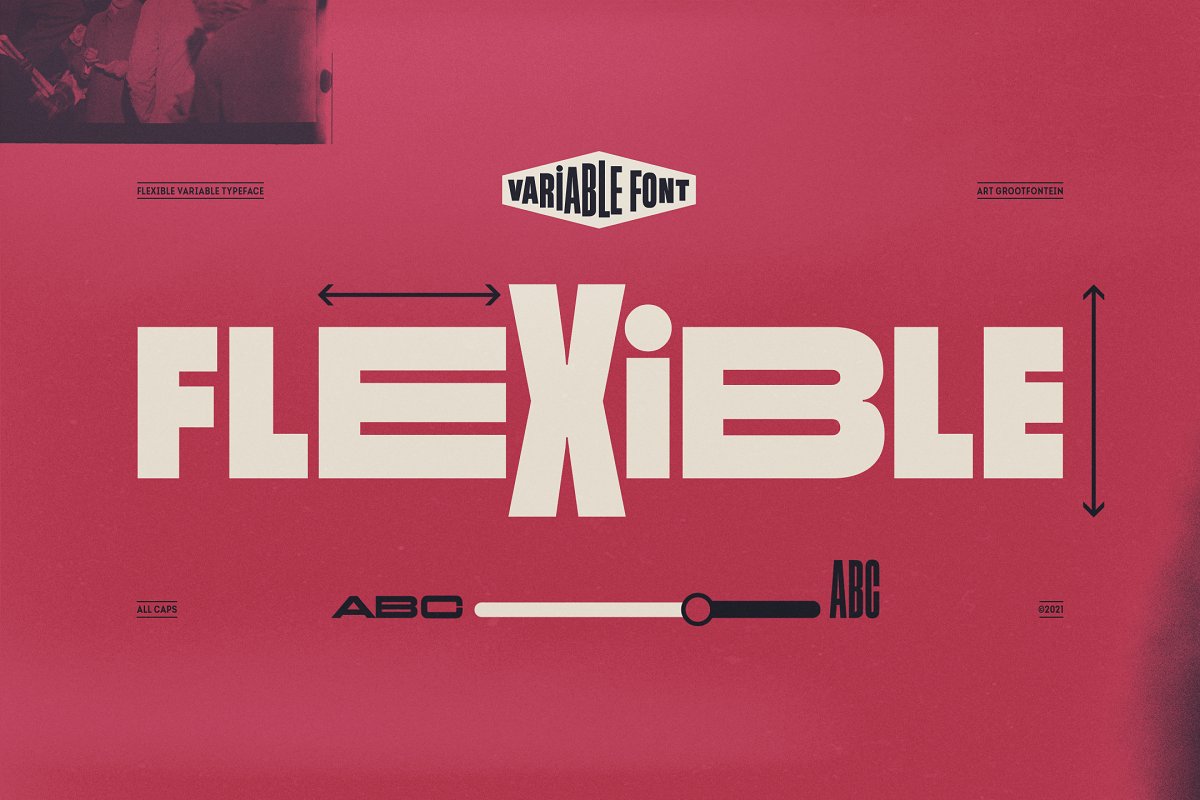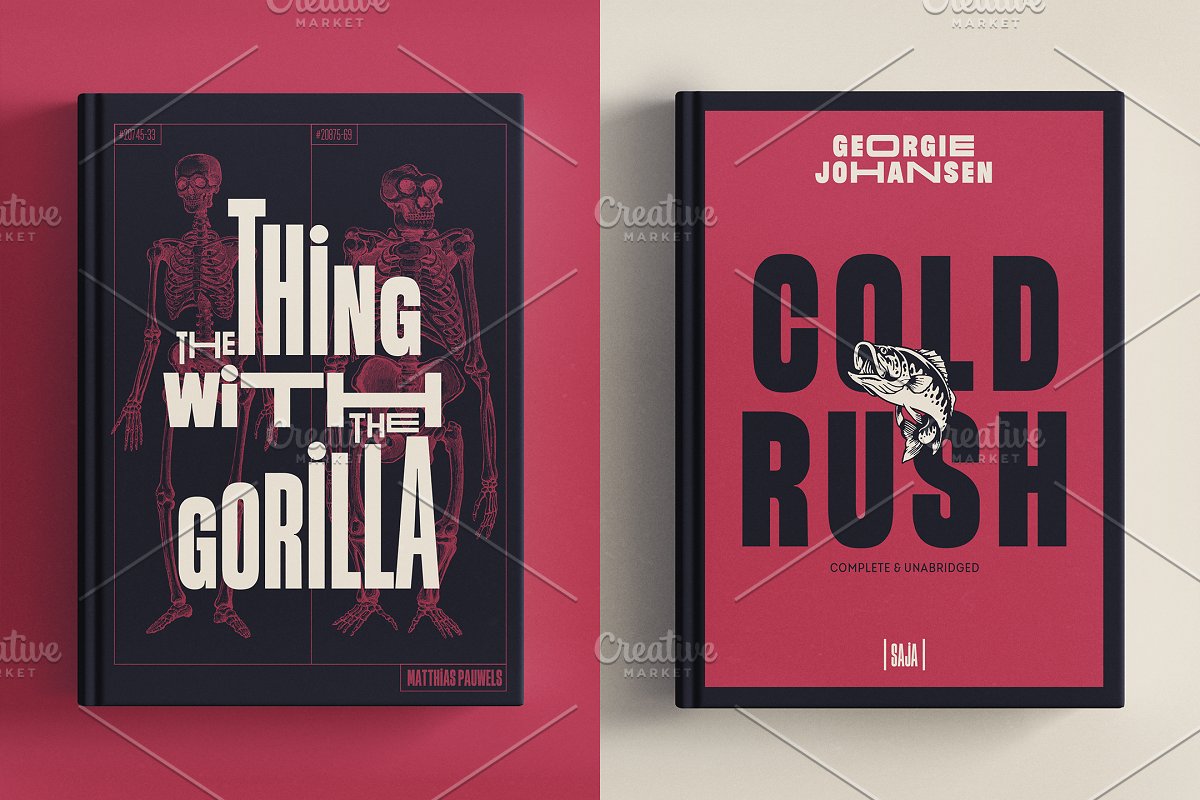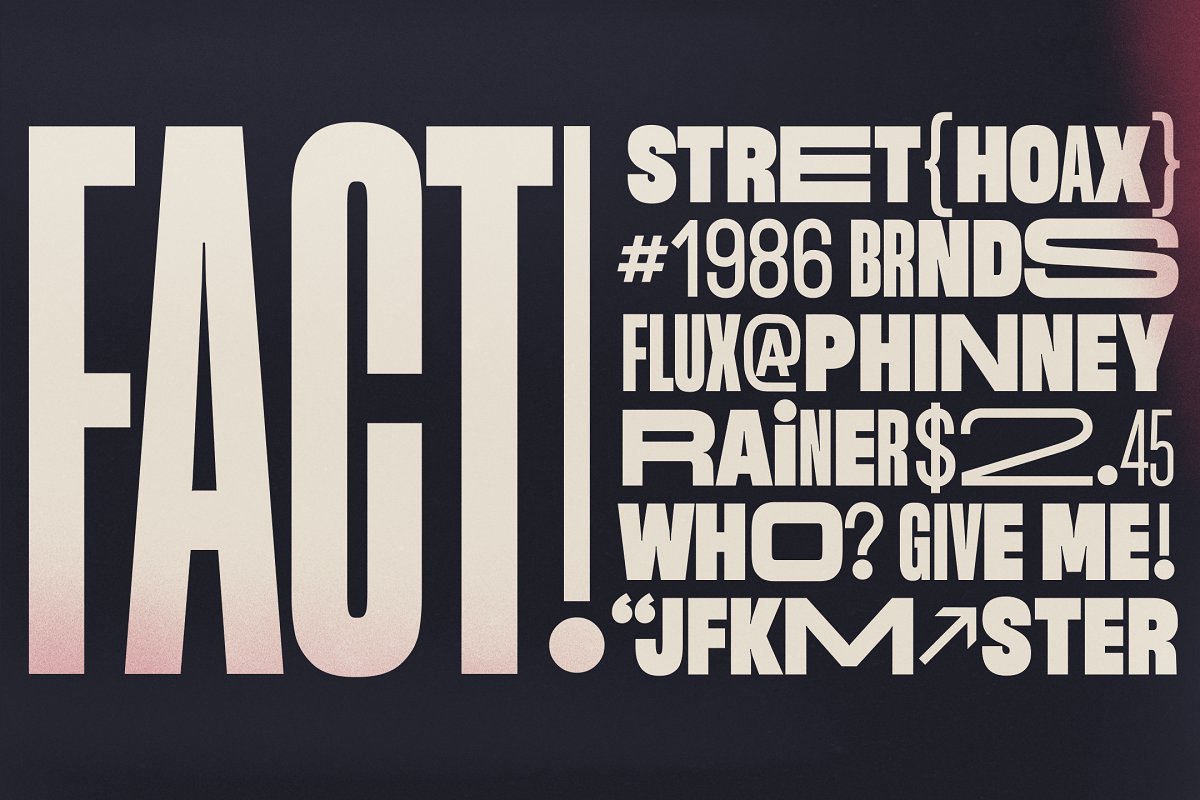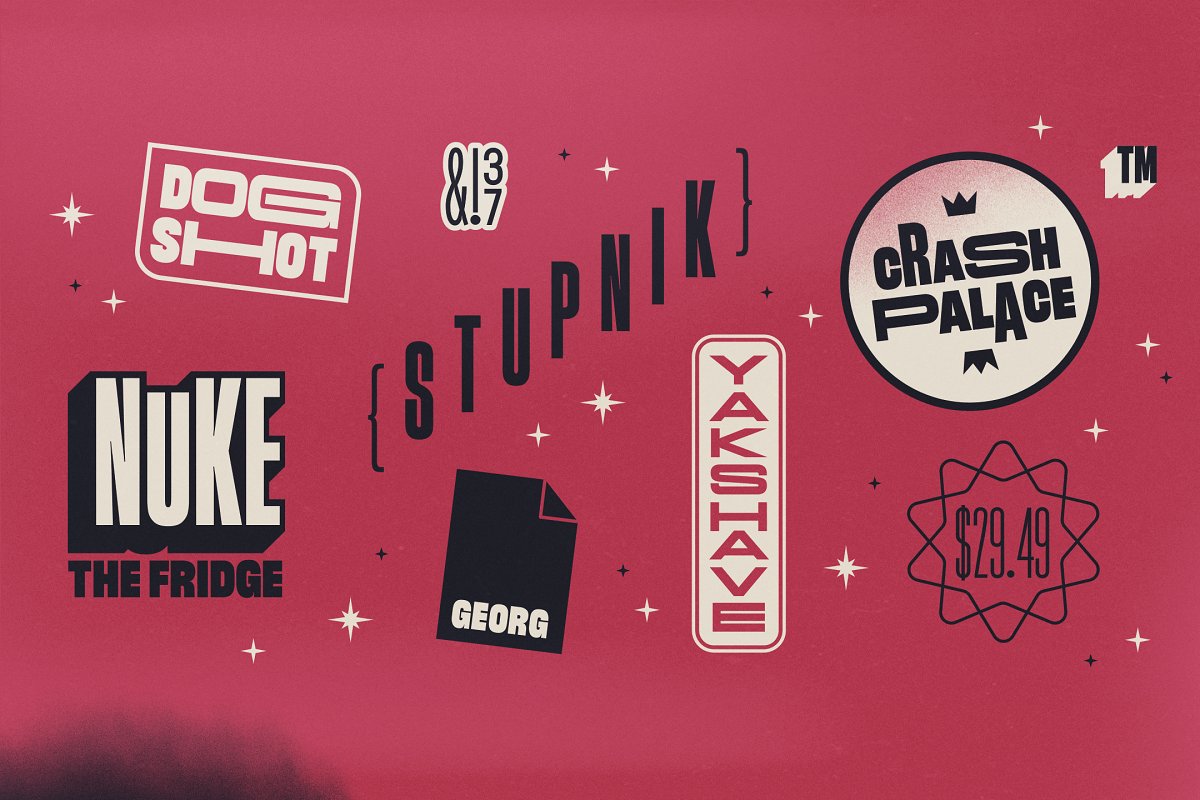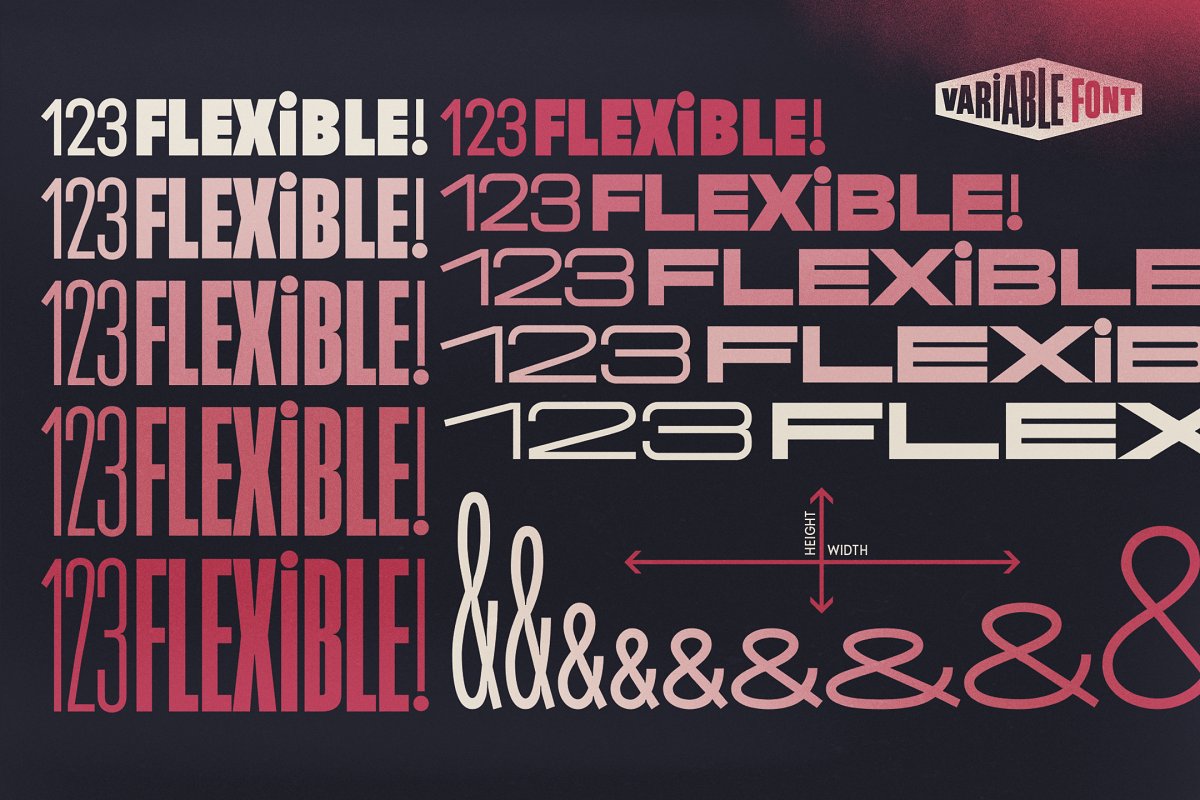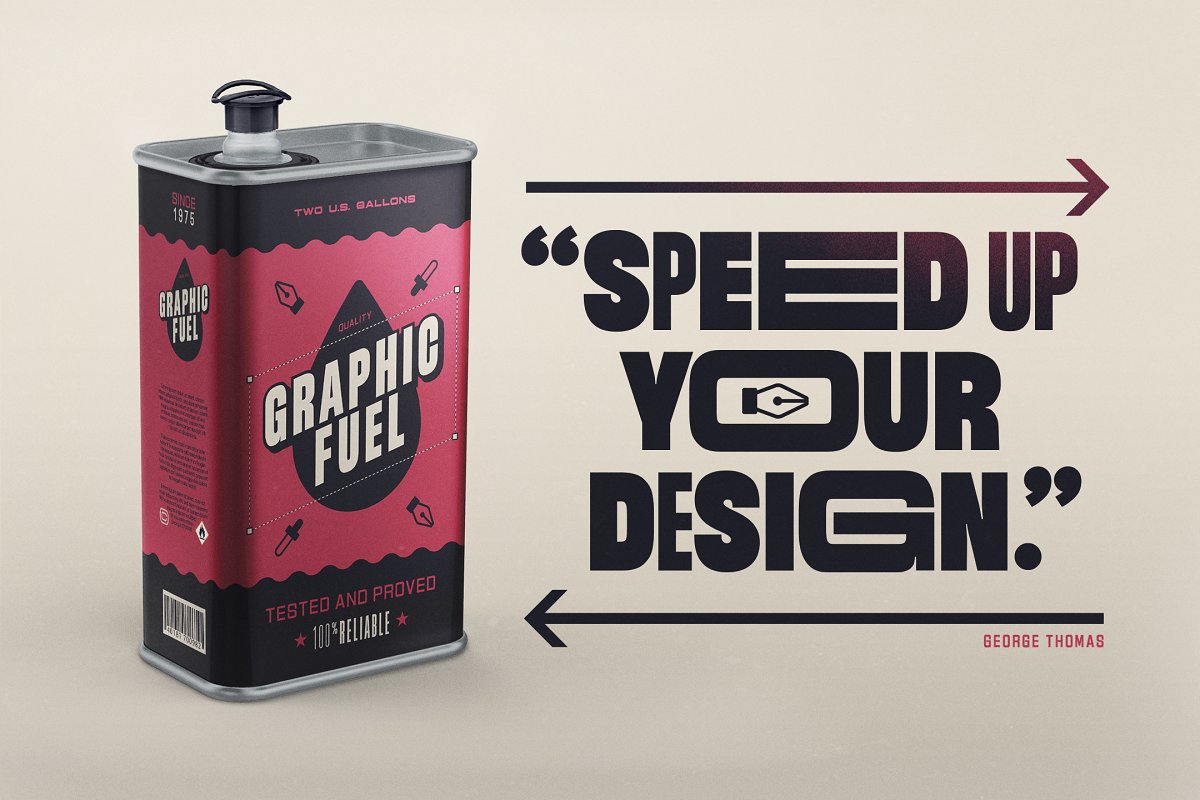
Inspired by late 19th century’s gothic typefaces from broadsides, Flexible uses the latest font technology to allow designers to play with each letter height and width easily, This versatile uppercase typeface is available in 8 widths and 8 heights, and as a variable font which gives you unlimited font possibilities!By using the variable version you only need to install one font file instead of the entire family and you take full advantage of the tremendous scope for design
Flexible was also developed with animation in mind to create amazing kinetic typography videos, Please have a look at this video to see animation examples :https://www, youtube, com/watch?v=VEJB31Kk8x8This family is a perfect choice for standout headlines, displays, packaging, flyers, logos, and works well in both print and digital environments like sophisticated web design or kinetic typography